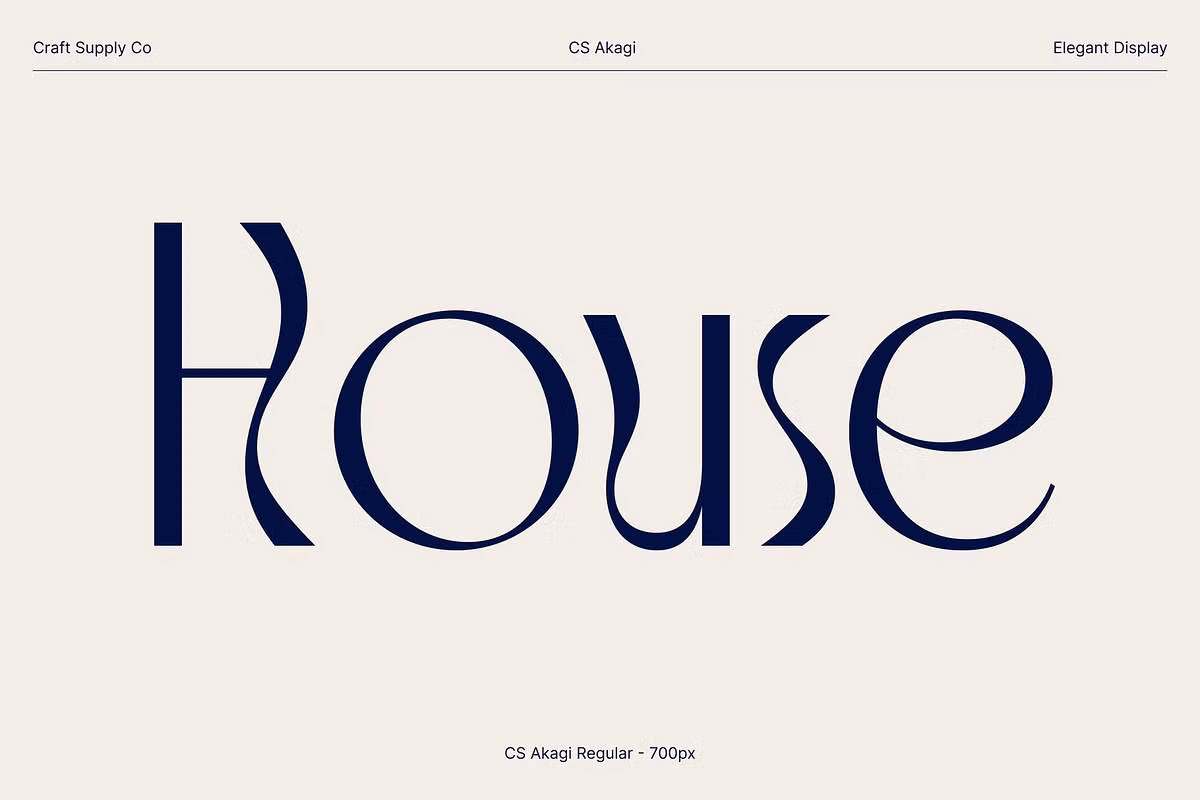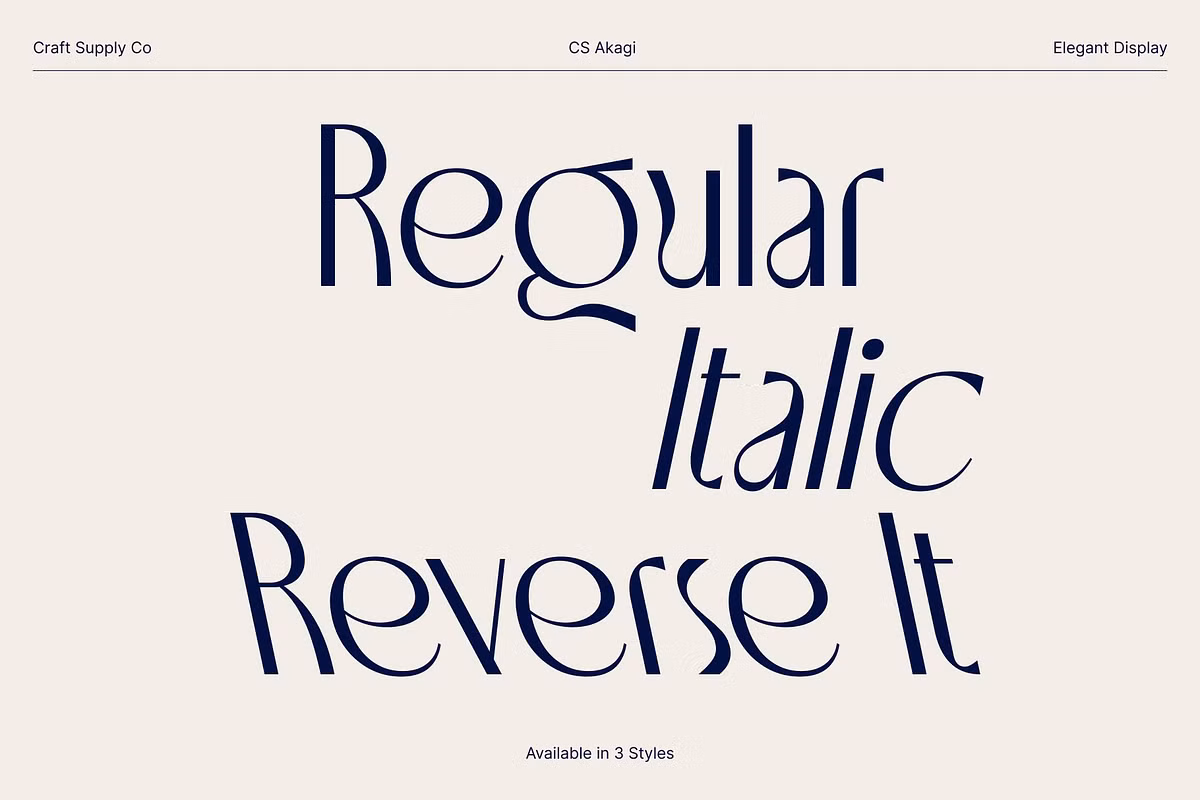
CS Akagi: Elegant Sans Serif Font Inspired by Art Nouveau Design
Meet CS Akagi, a beautiful sans serif font that looks really stylish. It has a great mix of smooth curves and clean lines, which makes it look elegant. The design of CS Akagi is inspired by Art Nouveau, an old style that features flowing lines and organic shapes. This font combines the classic feel of Art Nouveau with a modern look, making it perfect for many different uses. In this article, we’ll take a closer look at what makes CS Akagi special, including its unique design elements, the characters it includes, how you can use it, what fonts it pairs well with, and the details of its license.
Design Style: The Essence of Art Nouveau
CS Akagi is more than just a font – it’s a way to experience the art of the Art Nouveau era. The curves in the letters are smooth and flowing, creating a rhythm that feels effortless and expressive. What makes it special is the little quirks in each letter that give it personality, so every letter is unique but still looks elegant overall. The way the letters move and flow is balanced with a sense of control and precision, making CS Akagi a font that’s both memorable and stylish. It’s a beautiful combination of natural movement and careful design, resulting in a truly one-of-a-kind visual experience.
Art Nouveau is known for its detailed designs and use of natural shapes, and CS Akagi does a great job of capturing this style. The way the curves flow together creates a sense of continuity that works really well when used in larger text. This design element makes the font look better and easier to read, which makes it a good choice for many different uses. The curves are smooth and flowing, which helps to create a sense of movement and energy in the text. Overall, CS Akagi is a great example of how Art Nouveau design principles can be used to create a beautiful and functional font.
Character Sets: Comprehensive and Versatile
CS Akagi has a lot of characters that make it work well in many languages and situations. It includes big and small letters, numbers, and punctuation marks, following the OpenType rules. This means designers can use CS Akagi for many different projects without having to worry about missing characters. The font is really versatile and can be used in a variety of contexts, making it a great choice for designers who need a reliable and comprehensive font. With its wide range of characters, CS Akagi can handle everything from basic text to complex layouts, and its OpenType standards ensure that it will work seamlessly with other design tools. Overall, CS Akagi is a great font for designers who need a font that can keep up with their creative vision.
CS Akagi is a great font for companies that work all over the world because it can handle many different languages. This means that no matter where you are, your brand will look the same. The font also has something called PUA encoding, which makes it easy to use with different design programs. You don’t need any special tools to make it work. This makes it simple to add CS Akagi to your projects and make them look more appealing and effective. With CS Akagi, you can create a consistent look for your brand, no matter what language you’re using. It’s a versatile font that can be used in many different ways, from creating beautiful designs to making your brand stand out. Overall, CS Akagi is a great choice for anyone who wants a font that is easy to use and looks great in any language.
Use Cases: Perfect for High-End Design
The sophistication of CS Akagi makes it an ideal choice for various high-end design applications. Here are some notable use cases:
- Editorial Design: CS Akagi’s elegant structure enhances long-form reading, making it perfect for magazines, journals, and books where readability is paramount.
- Fashion Branding: The font’s artistic flair makes it a top pick for fashion labels and luxury brands looking to convey sophistication and style in their marketing materials.
- Packaging Design: CS Akagi can elevate packaging through its refined aesthetic, making products stand out on shelves and resonate with discerning consumers.
- Luxury Visuals: Whether it’s for event invitations or corporate branding, this font adds a touch of elegance that appeals to high-end clientele.
In each of these contexts, the unique character of CS Akagi shines through, ensuring that any design project employing this font will carry an air of sophistication and modernity.
Pairing Suggestions: Complementing CS Akagi
When it comes to typography, pairing fonts effectively can elevate your design to new heights. CS Akagi, with its elegant and artistic character, pairs beautifully with various other typefaces. Here are some pairing suggestions:
- Serif Fonts: Pairing CS Akagi with a classic serif font, such as Playfair Display or Merriweather, creates a striking contrast that balances modern and traditional aesthetics.
- Geometric Sans Serifs: For a contemporary look, combine CS Akagi with a geometric sans serif like Montserrat or Avenir. This pairing maintains a clean visual flow while introducing a modern touch.
- Script Fonts: To add a personal touch, consider pairing CS Akagi with a delicate script font like Great Vibes or Pacifico. This combination can be particularly effective for invitations and branding materials.
When selecting complementary fonts, remember to consider the overall mood and message of your design. The right pairing can enhance the impact of CS Akagi and create a cohesive visual narrative.
With its seamless integration into various design contexts and thoughtful pairing possibilities, CS Akagi stands out as a font that not only meets the demands of modern design but also pays homage to the artistic traditions of the past. Embrace the elegance of CS Akagi and elevate your designs to new heights.